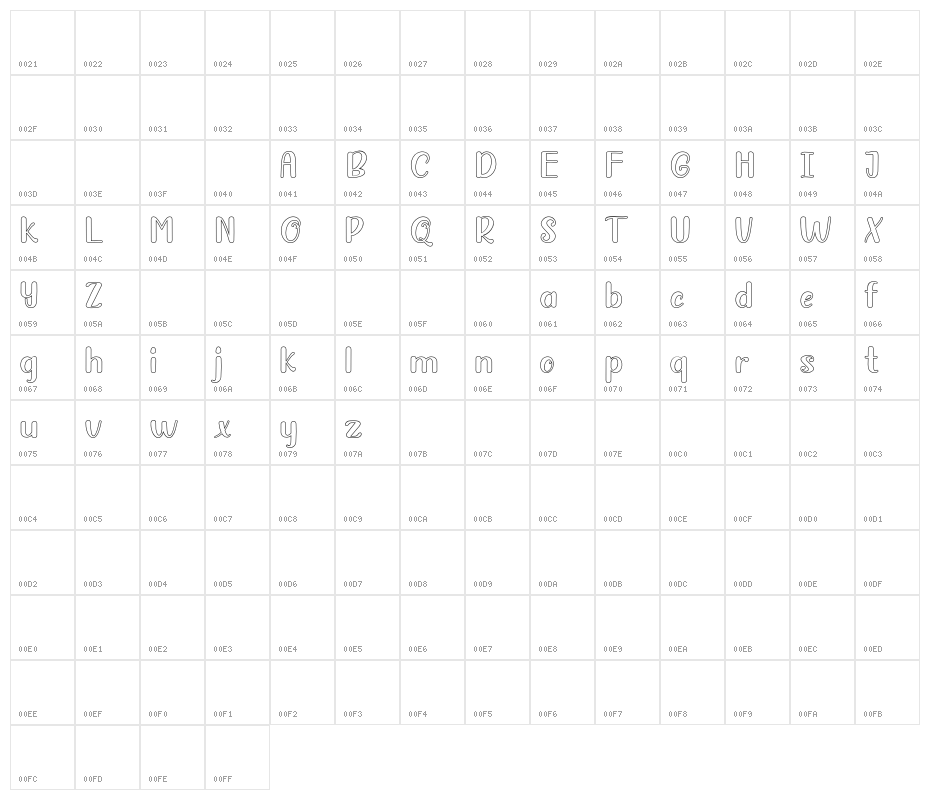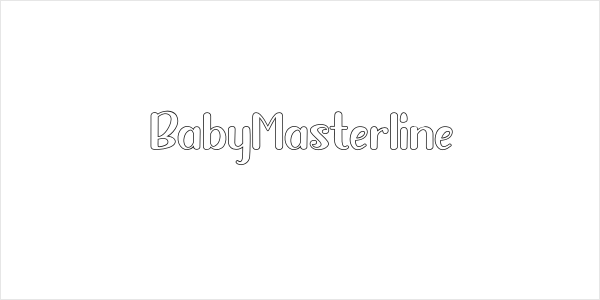
BabyMasterline Font
BabyMasterline Description
This playful and whimsical font features rounded edges and a hand-drawn aesthetic, giving it a friendly and approachable feel. The characters are outlined with a consistent stroke width, creating a bubble-like appearance that is both fun and engaging. The uppercase and lowercase letters maintain a uniform style, with a slight variation in height that adds to the font's charm. The numbers and special characters are designed to match the overall playful theme, making this font ideal for creative projects. Its unique style is perfect for children's books, playful branding, or any project that requires a touch of whimsy.
| Proposed Projects | Ideal for children's books, playful branding, greeting cards, and creative projects. |